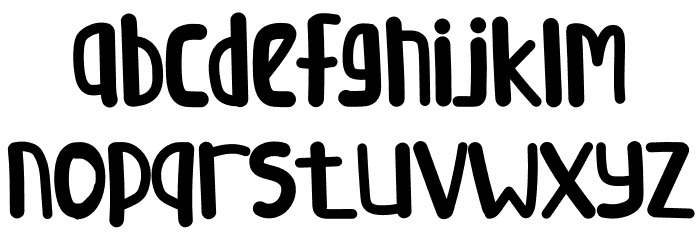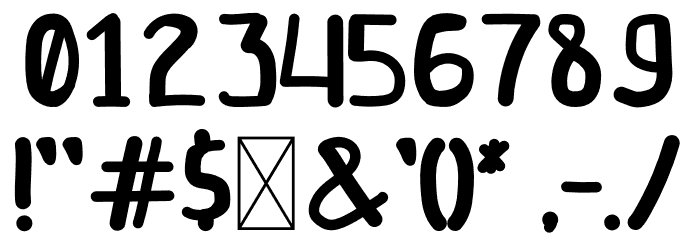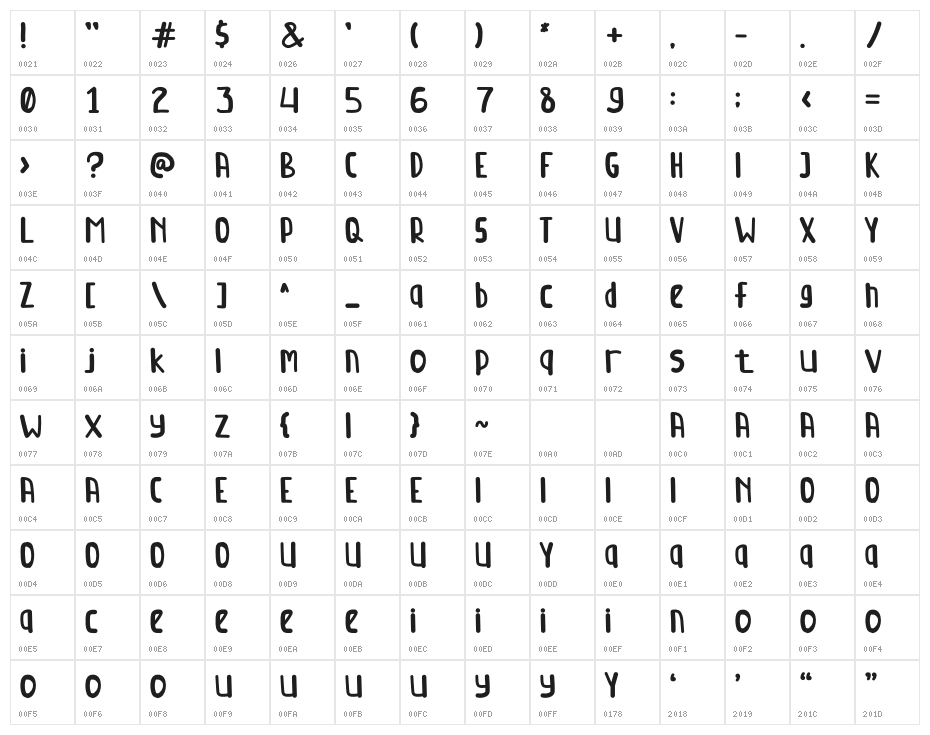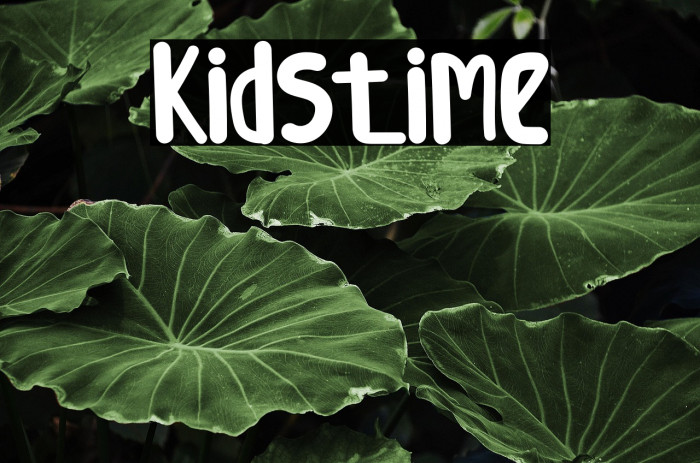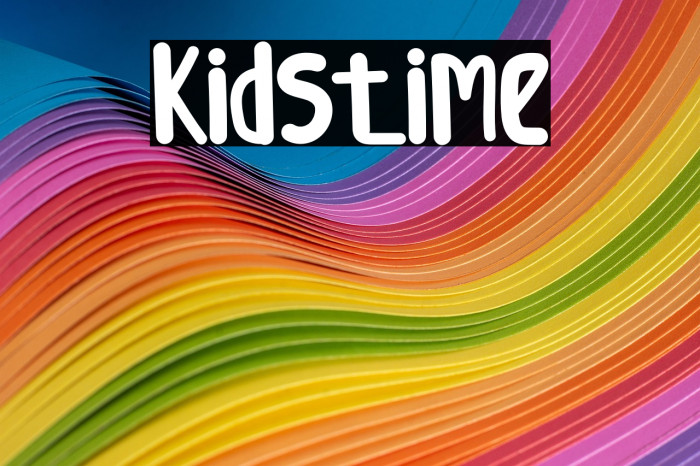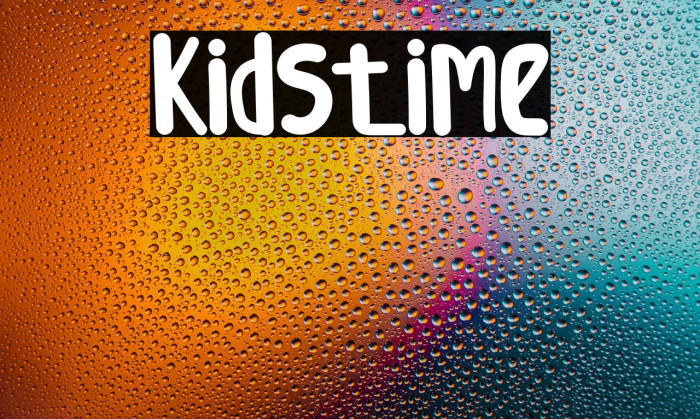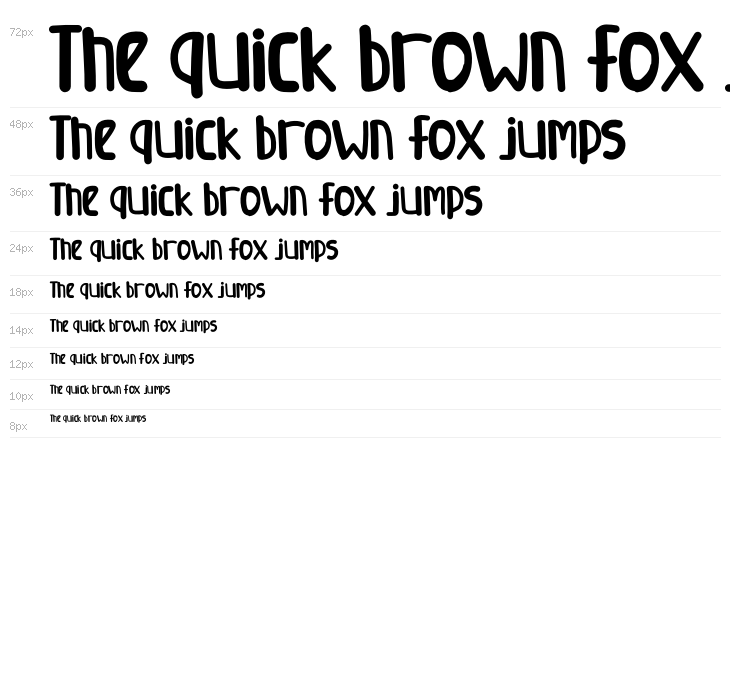
Kidstime Font
This playful and whimsical font features rounded, bold characters that convey a sense of fun and creativity. The letters are slightly irregular, giving them a hand-drawn appearance that adds to their charm. The uppercase and lowercase letters maintain a consistent style, with smooth curves and a friendly demeanor. The numbers and special characters are equally engaging, making this font suitable for a variety of playful and informal applications. Its unique style is perfect for projects aimed at children or those seeking a lighthearted touch.
A playful, hand-drawn font with rounded, bold characters.
- Proposed Projects: Ideal for children's books, educational materials, playful branding, and creative posters.
- Overall Style: Playful